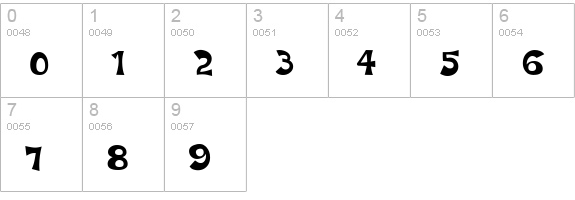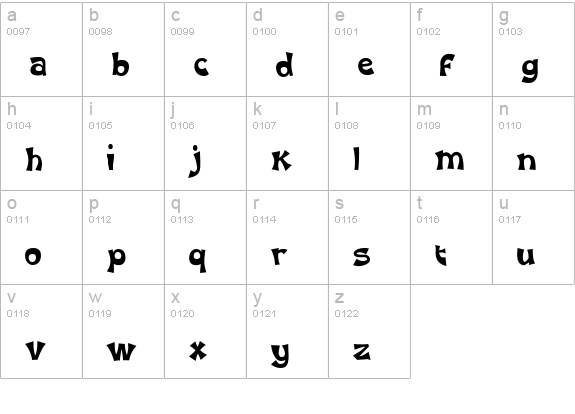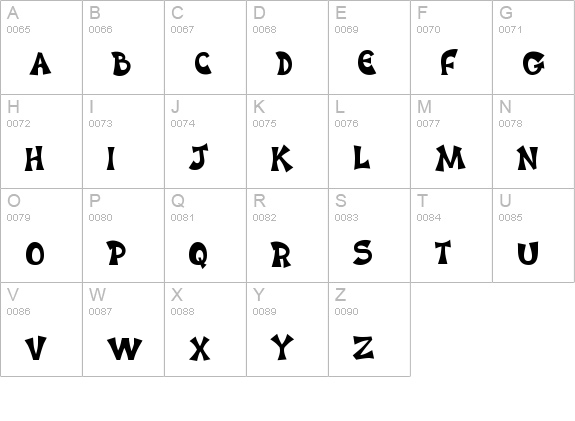
Karaoke Superstar BV Font Details
Karaoke Superstar BV font is the ultimate choice for anyone seeking to add a touch of glamour and excitement to their designs. This font is a perfect blend of elegance and playfulness, making it ideal for a wide range of creative projects. With its bold and captivating style, Karaoke Superstar BV font is sure to grab attention and make a statement. Whether you're designing a poster, a logo, or a website, this font will effortlessly enhance your visuals and bring them to life. One of the best things about Karaoke Superstar BV font is that it is free! Yes, you read that right - this incredible font is freely available to download at FontsMarket.com. You can now enjoy the benefits of this stunning font without any cost, making it an absolute must-have for designers on a budget. But don't let its affordability fool you - Karaoke Superstar BV font is of the highest quality. Its crisp lines and flawless curves ensure that your text will always look professional and polished. Plus, its versatility allows it to adapt to any style or theme, making it an excellent choice for both casual and formal projects. So, if you're looking to elevate your designs and make them stand out from the crowd, look no further than Karaoke Superstar BV font. Download it for free at FontsMarket.com and let your creativity shine.